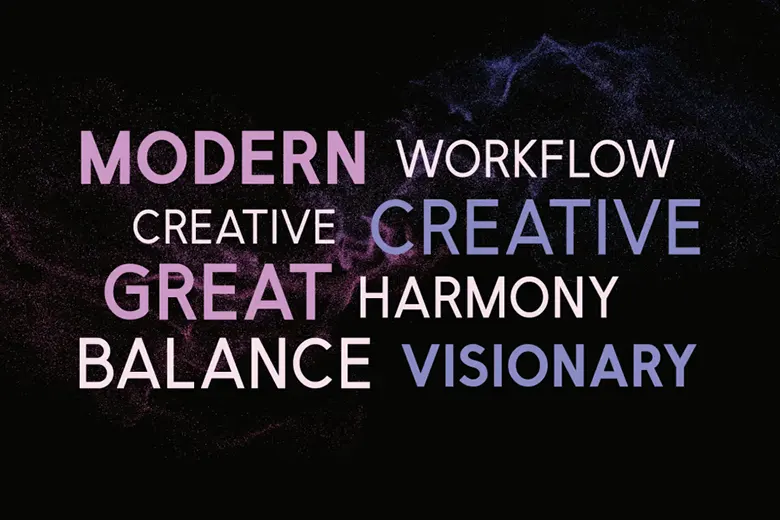
Rellion is a sleek, modern font that gives your projects a polished and professional look. Its clean design works perfectly for logos, websites, branding, and print materials. Whether you’re a designer, business owner, or creative, this font helps your work shine.
Its smooth lines and balanced shapes make it easy to read, even in small sizes. This makes it ideal for both digital and print designs. Supporting multiple languages, it’s a smart choice for global projects.
You can choose from different weights, like light to bold, to match your design needs. Features like stylistic alternates and a wide range of characters let you customize it easily. Whether you want something bold or subtle, Rellion fits the bill.
Every letter is crafted with care, ensuring a clean and professional finish. It’s perfect for branding, social media, ads, and more, adding a modern touch to your work. Try Rellion today and see how it elevates your designs!
Rellion Sans Serif Font